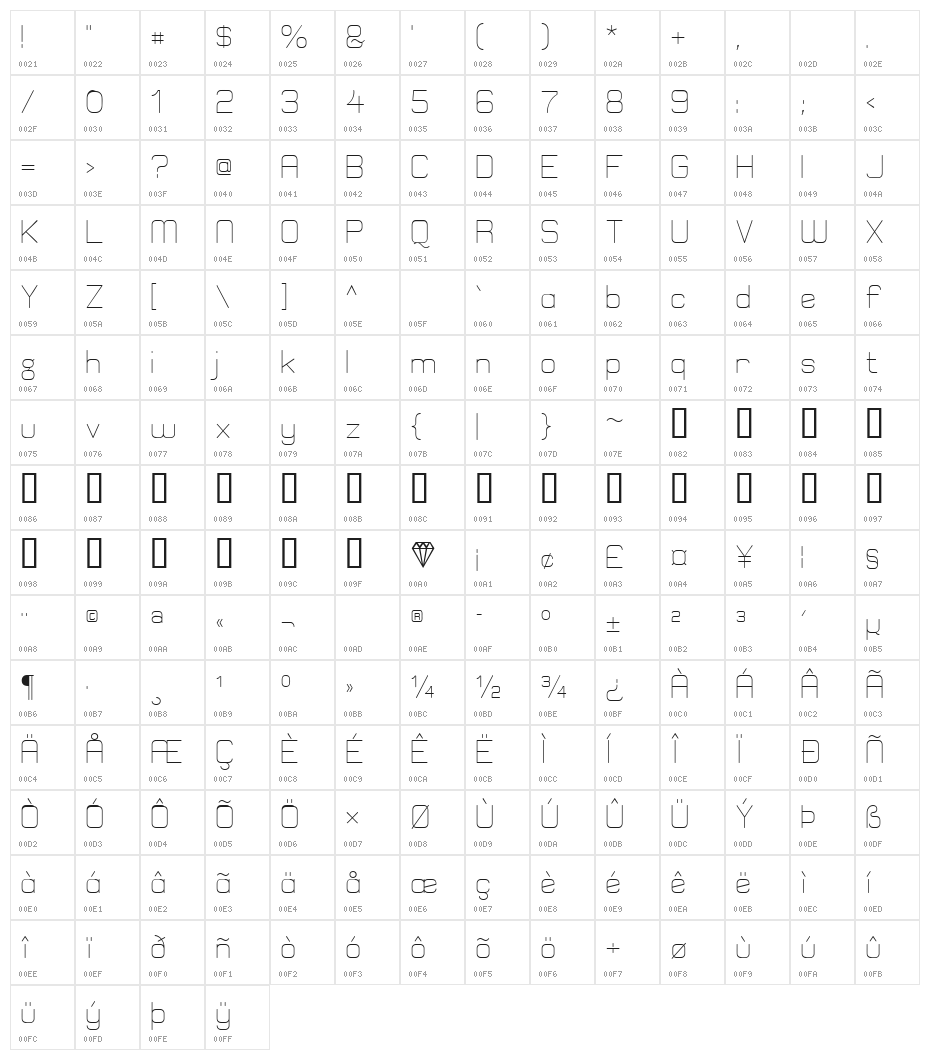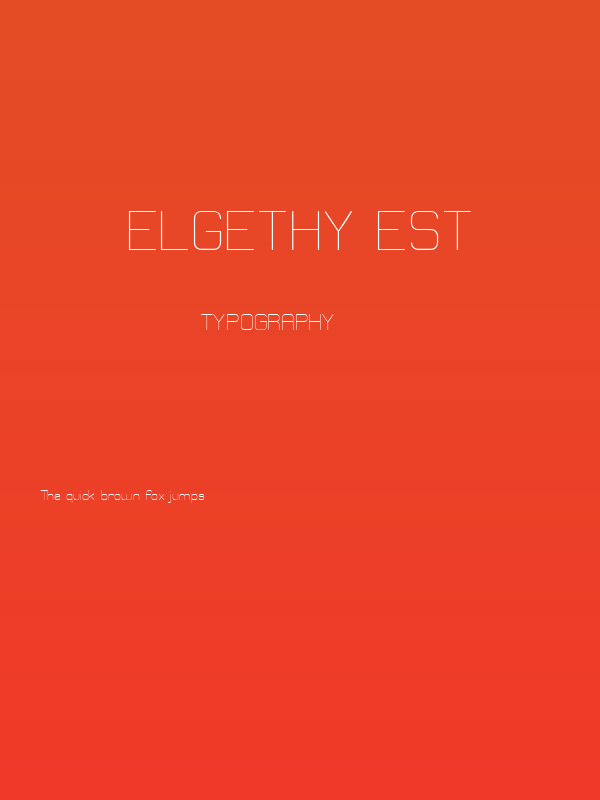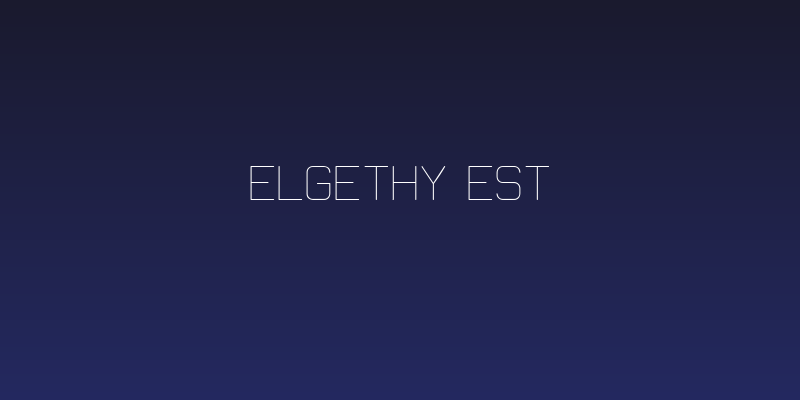
Elgethy Est Font
Elgethy Est Description
This font features a modern, geometric design with clean, rounded edges and a minimalist aesthetic. The characters are constructed with a consistent line weight, giving it a sleek and uniform appearance. The uppercase and lowercase letters maintain a harmonious balance, while the numerals and special characters complement the overall style. Its open and airy structure makes it highly legible, even at smaller sizes. The font's simplicity and elegance make it versatile for various design applications, from digital interfaces to print media.
| Proposed Projects | Ideal for tech branding, modern web design, minimalist posters, and user interfaces. |